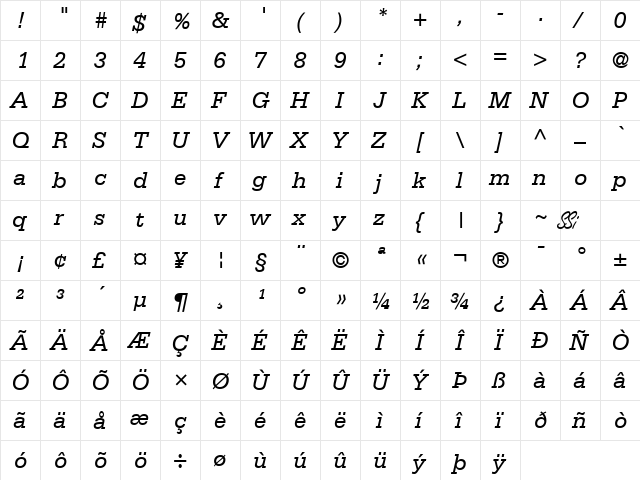
Metron SSi Italic
Design Context for Metron SSi Typeface
Metron SSi is a composed and adaptable typeface that performs quietly and consistently across a wide range of design contexts. Its italic angle brings a sense of urgency and motion to the letterforms.
Pro Tip: Use Metron SSi for emphasis, pull quotes, and subheadings where its slanted energy can add rhythm to the layout.